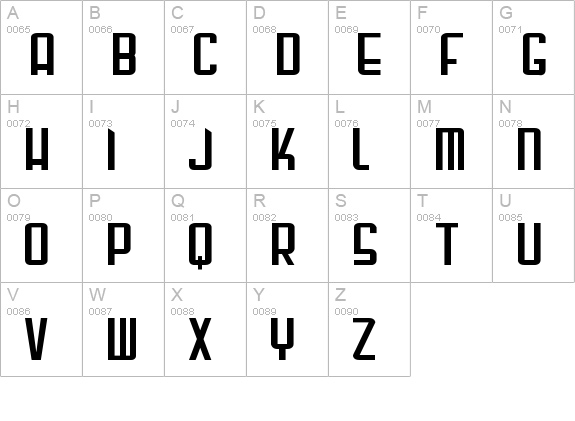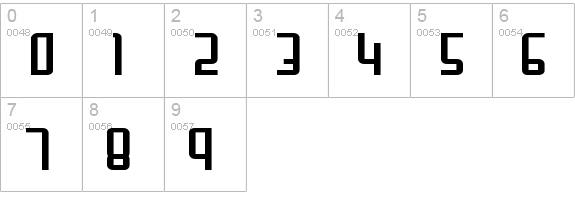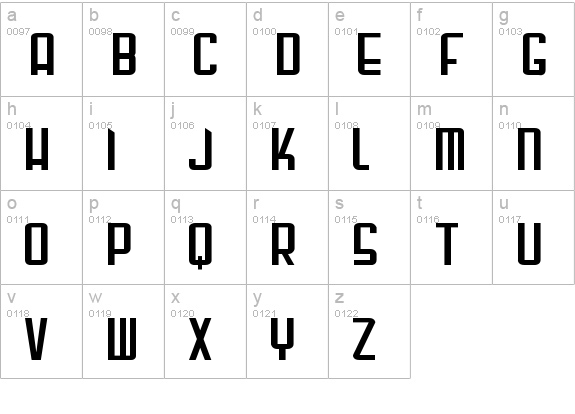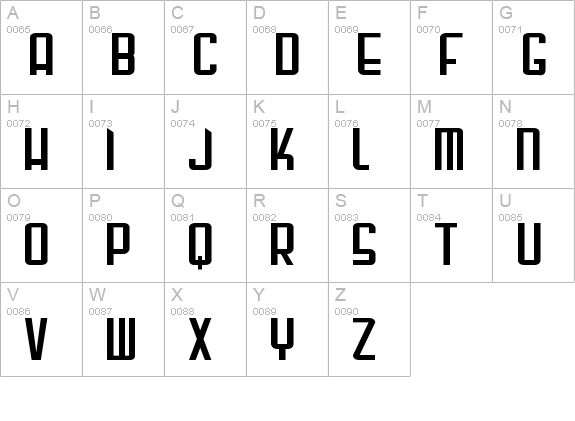
Gunblade Font Details
Gunblade font is a modern and sleek typeface that combines elements of both guns and blades to create a unique and edgy design. With its sharp lines and bold characters, this font is perfect for projects that require a powerful and dynamic look. The Gunblade font is versatile and can be used for a variety of purposes, from branding to graphic design. Best of all, Gunblade font is available for free download at FontsMarket.com. This means that you can easily access this striking font and add it to your collection without any cost. Don't miss out on the opportunity to enhance your projects with the eye-catching Gunblade font today!